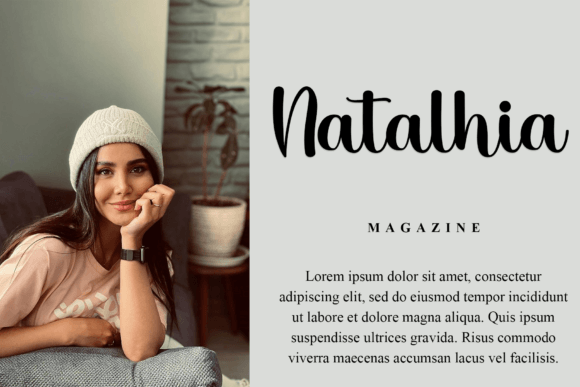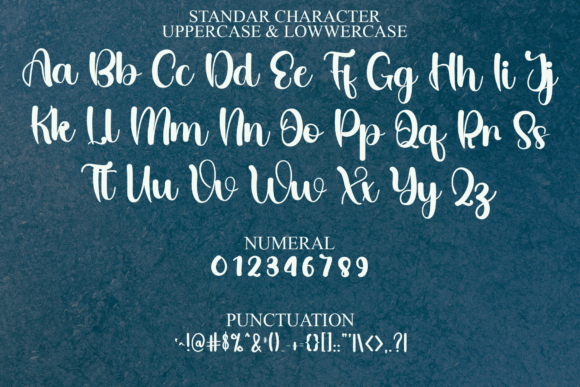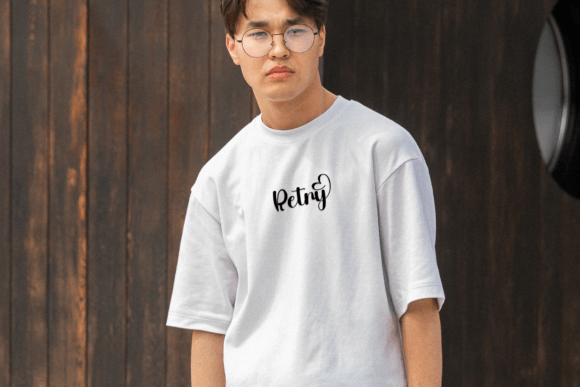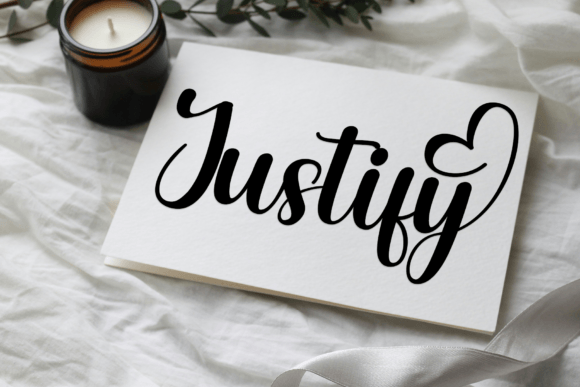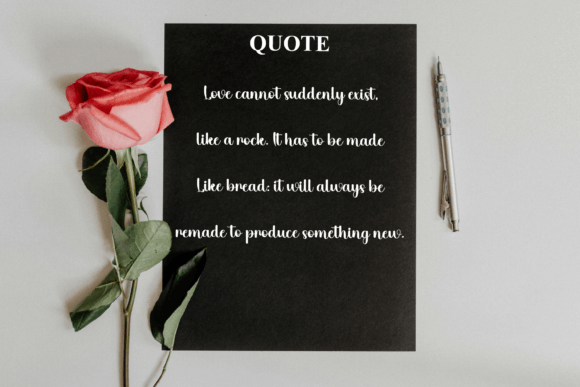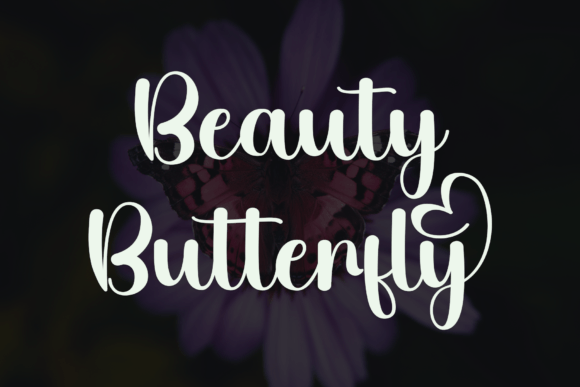
The Perfect Touch: Unlocking the Magic of the Butterfly Font
Have you ever stared at a blank canvas, feeling the pressure to bring a creative idea to life? You’ve got a vision, but something’s missing – that special something that makes it truly sparkle. For designers, finding the right font can be the game-changer that takes a project from ordinary to extraordinary.
Enter the Butterfly Font, a delicate and elegant handwritten font that’s as beautiful as it is versatile. With its well-balanced characters and flowing style, it’s the perfect addition to any design. Whether you’re working on a wedding invitation, a children’s book, or a fashion brand’s logo, the Butterfly Font is sure to bring your creative ideas to life. And with its PUA coding, accessing its amazing glyphs and ligatures is a breeze!
Key Features of Butterfly Font
- Unique Characteristics: The Butterfly Font features a unique, hand-drawn design with delicate flourishes and subtle texture, giving it a whimsical and elegant feel.
Designer Review: Butterfly Font
✨ The Butterfly Font is a delightful addition to any design project. Its whimsical, hand-drawn feel brings a touch of elegance and sophistication. The font’s unique combination of curved lines and organic shapes creates a sense of movement and fluidity, perfect for projects that require a playful and imaginative vibe.
- ✨ Customization options are plentiful, allowing designers to fine-tune the font to fit their specific needs.
- ✨ The font’s versatility makes it suitable for a wide range of projects, from children’s books to branding materials.
⚠️ However, I do have a few reservations about the font. Firstly, its complexity can make it challenging to read in smaller sizes. Additionally, some characters may appear disconnected or uneven, which can detract from the overall aesthetic.
- ⚠️ Be cautious when using the font in digital media, as its intricate details may not render smoothly.
- ⚠️ Certain characters may require manual adjustments to achieve optimal legibility.
Overall, the Butterfly Font is a beautiful and charming addition to any design project. While it may present some challenges, its unique charm and versatility make it well worth the effort.
Tips for Getting the Most Out of the Butterfly Font
Experiment with different font sizes and colors to create visually appealing designs. Use the Butterfly Font for titles, headings, and other decorative text to add a touch of elegance to your designs.
The Butterfly Font is ideal for wedding invitations, greeting cards, and other creative projects that require a touch of whimsy and romance. It’s also suitable for branding and logo designs that need a unique and memorable font.